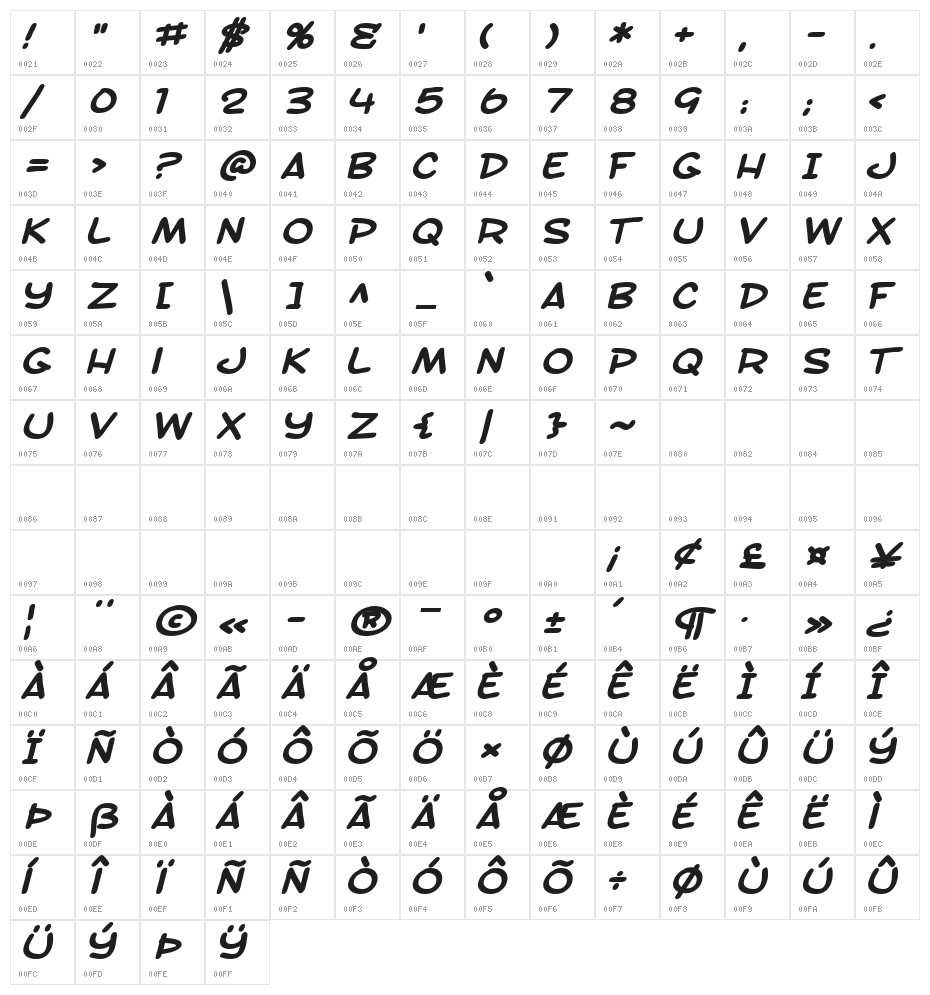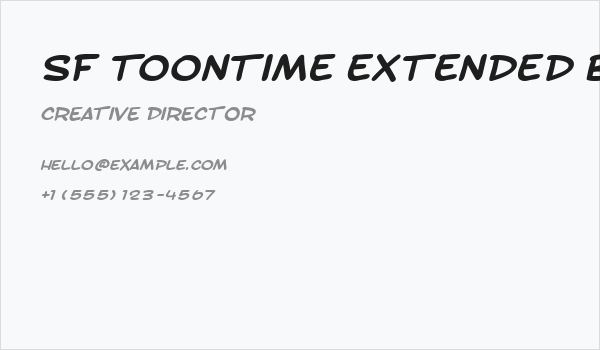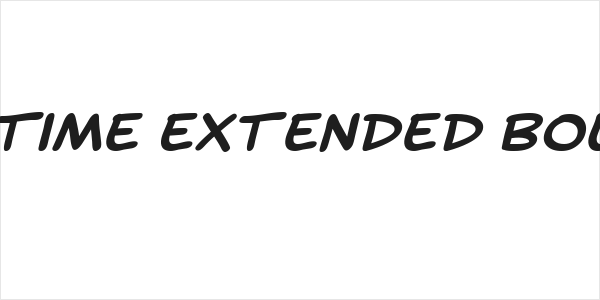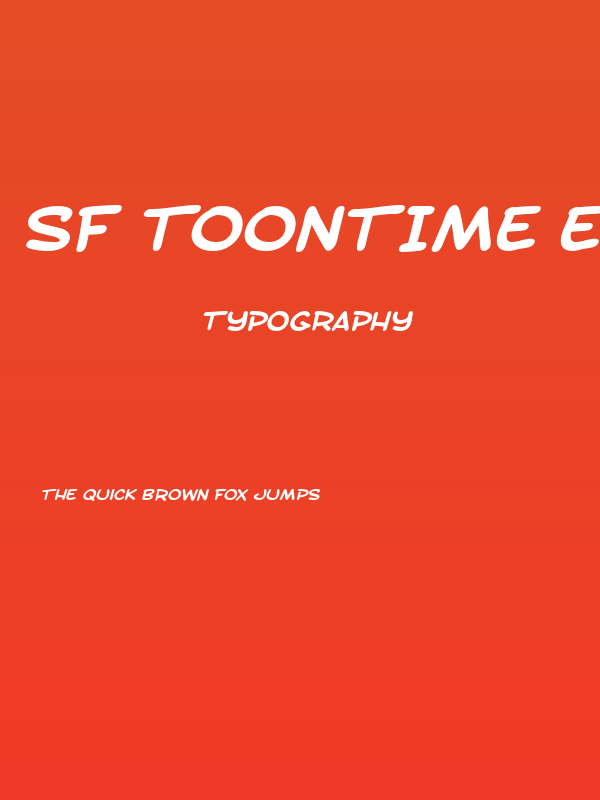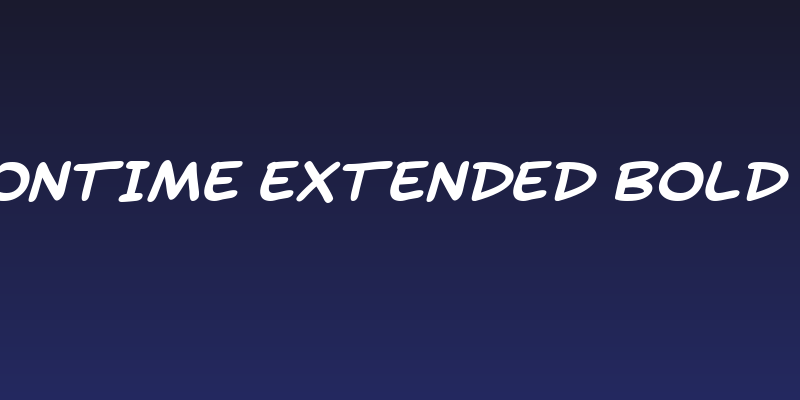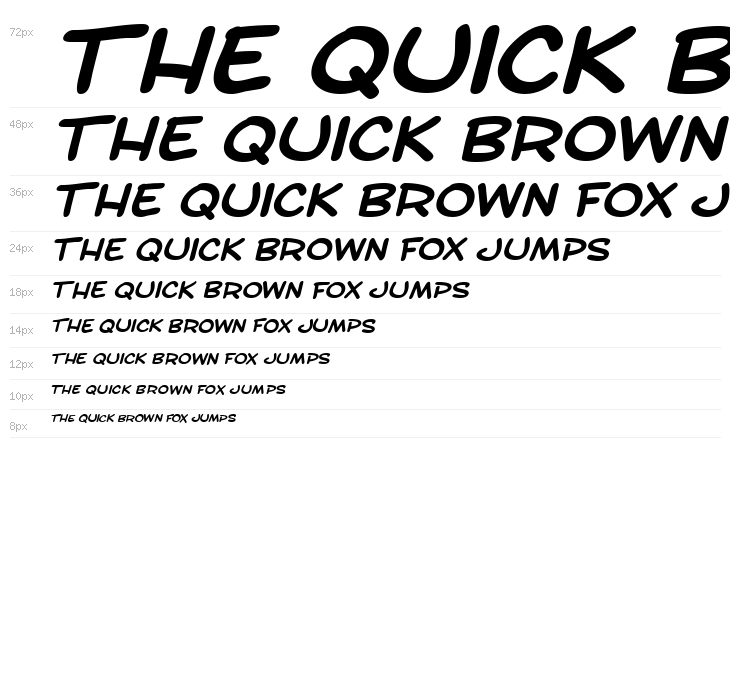
SF Toontime Extended Bold Italic Font
SF Toontime Extended Bold Italic Description
This playful and energetic font features bold, italicized characters with a cartoonish flair. The letters are rounded and slightly slanted, giving a sense of movement and fun. The strokes are thick and consistent, providing a strong visual impact. The font maintains a uniform width across characters, which enhances readability while preserving its whimsical style. It includes a full set of uppercase and lowercase letters, numbers, and a variety of special characters, making it versatile for different design needs. The overall appearance is lively and engaging, perfect for projects that require a touch of humor and creativity.
| Overall Style | Playful, Cartoonish |
| Proposed Projects | Ideal for children's books, comic strips, playful branding, and animated video titles. |